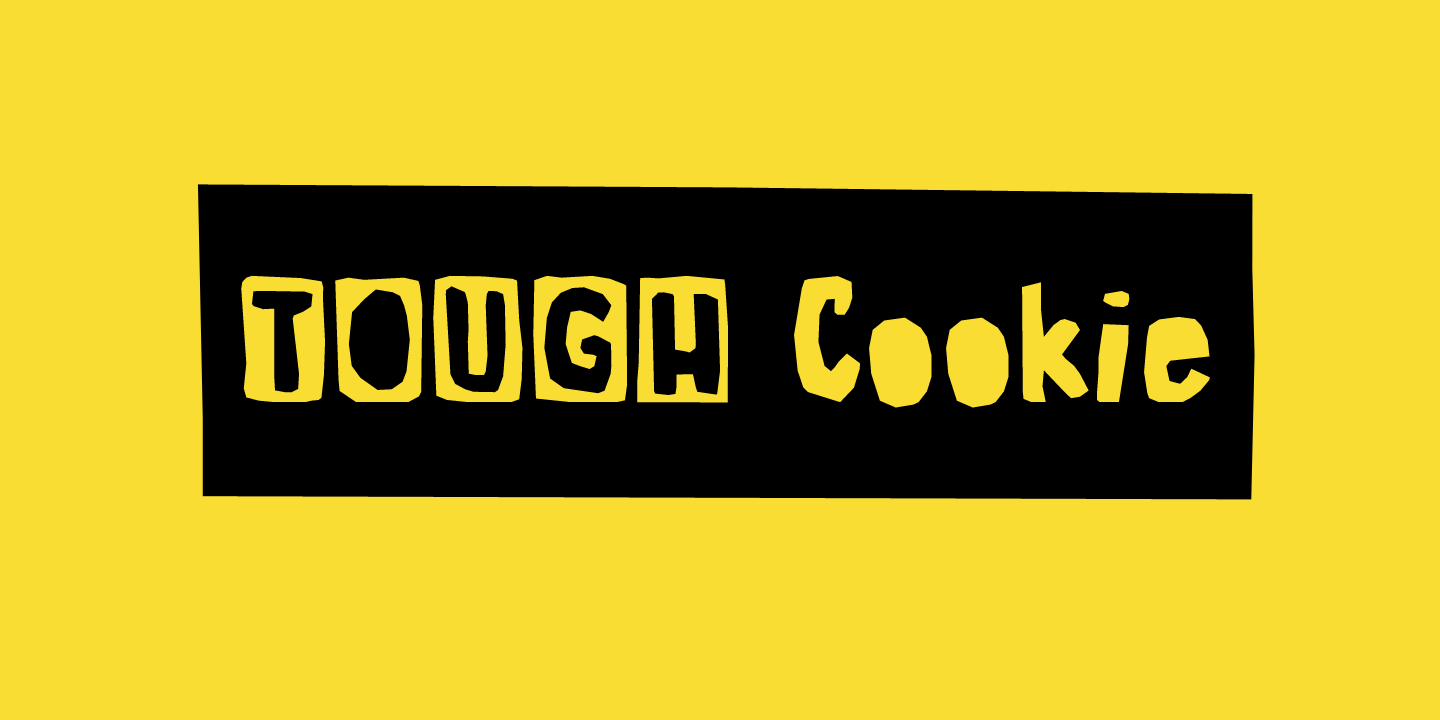
Tough Cookie Font is perfect for rustic bakery branding, artisanal cookie packaging, homestyle restaurant menus, country kitchen signage, vintage baking workshops, farm-to-table dining establishments, authentic comfort food brands, traditional confectionery logos, cozy café designs, and wholesome family-oriented businesses that require sturdy typography with handcrafted warmth and authentic character.
What makes Tough Cookie Font so exciting is its delightful combination of rugged durability with homestyle warmth that perfectly captures the essence of traditional baking and authentic craftsmanship. This font features bold, hand-hewn letterforms with charming imperfections and rustic character that evoke the feeling of freshly baked goods and family recipes passed down through generations. The sturdy design approach balances strength with approachability, making it perfect for brands that want to project authenticity, reliability, and homemade quality.
The Tough Cookie Font family includes multiple weights and styles: Regular, Bold, Black, Condensed, Rough, and distressed variants with artisanal texture elements. Each weight maintains the signature tough yet warm character while offering comprehensive flexibility for rustic design applications and authentic typographic expressions.
Artisanal designers consistently choose Tough Cookie Font Free Download for projects requiring authentic handcrafted typography that embodies the spirit of traditional baking and homestyle authenticity. Whether you're developing bakery brand identities, creating comfort food packaging, designing farm-fresh marketing materials, or crafting wholesome family business campaigns, this font delivers exceptional warmth and rustic appeal. The font's comprehensive character set includes bakery symbols and handcrafted styling options while ensuring optimal performance across both digital and print artisanal applications, making it an essential tool for designers working on authentic projects that demand sturdy, warm, and traditionally crafted typography solutions with homestyle charm and artisanal character.